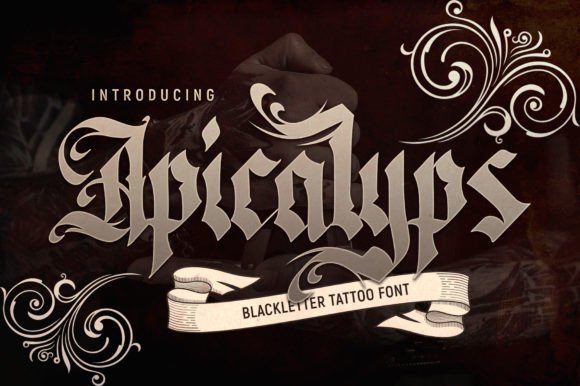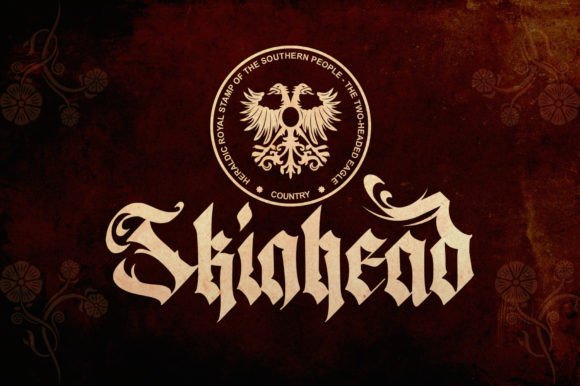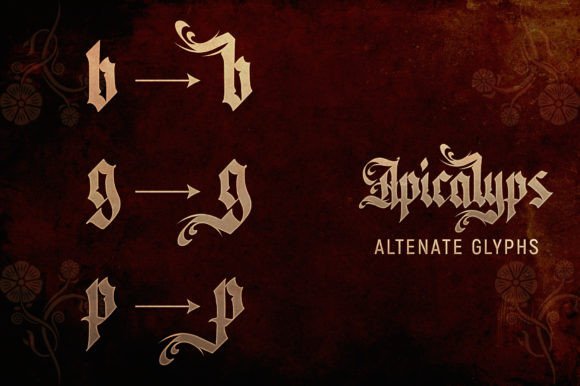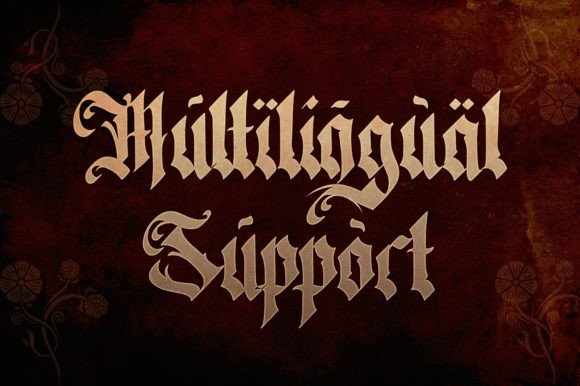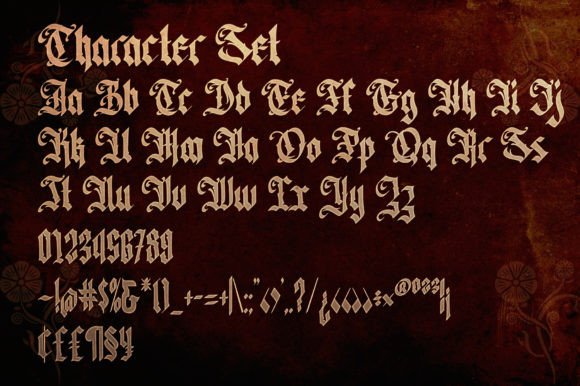
Apicalyps Font
Apicalyps is a contemporary blackletter tattoo font that feels right at home on logos, t-shirt designs, posters, flyers, and other brand identity items. Add it confidently to your projects, and you will love the results.